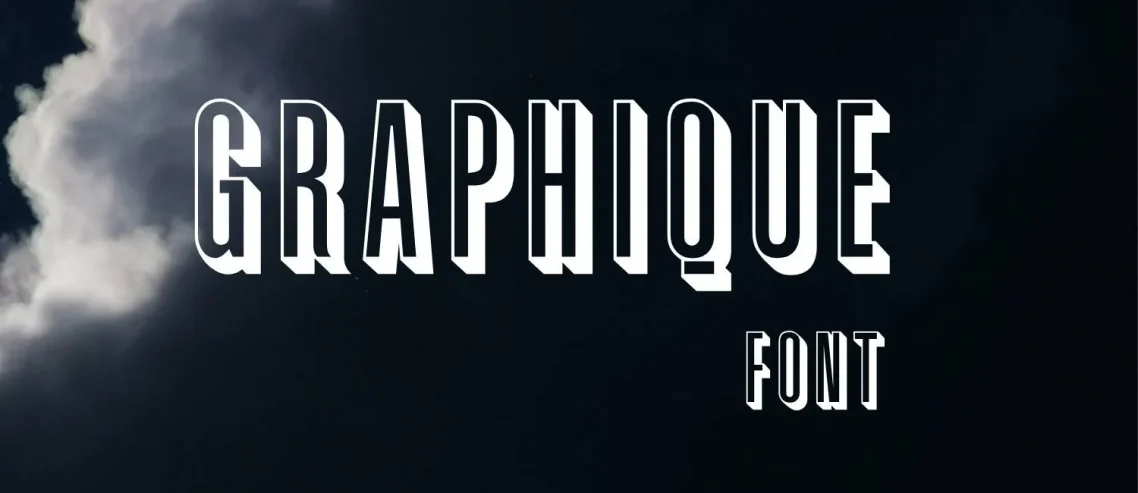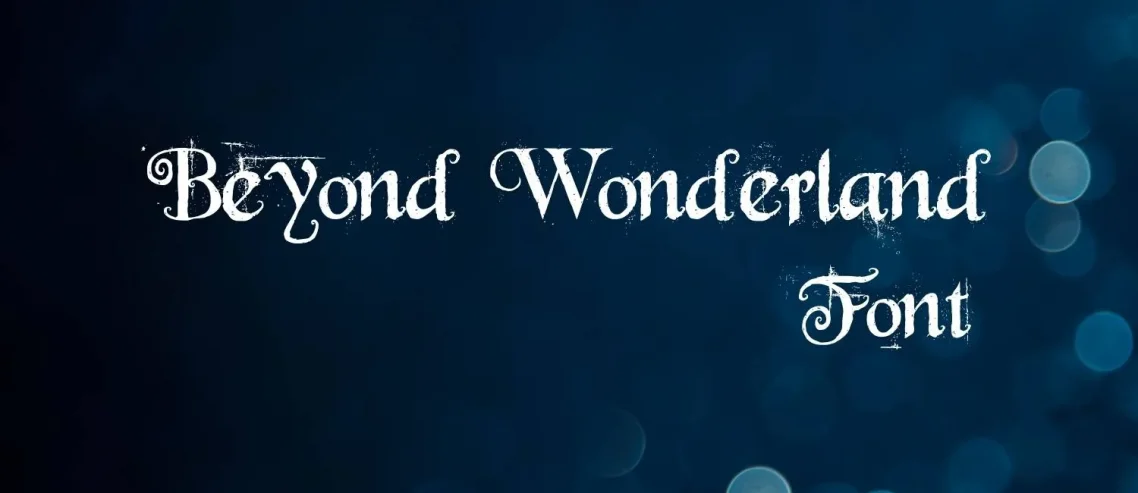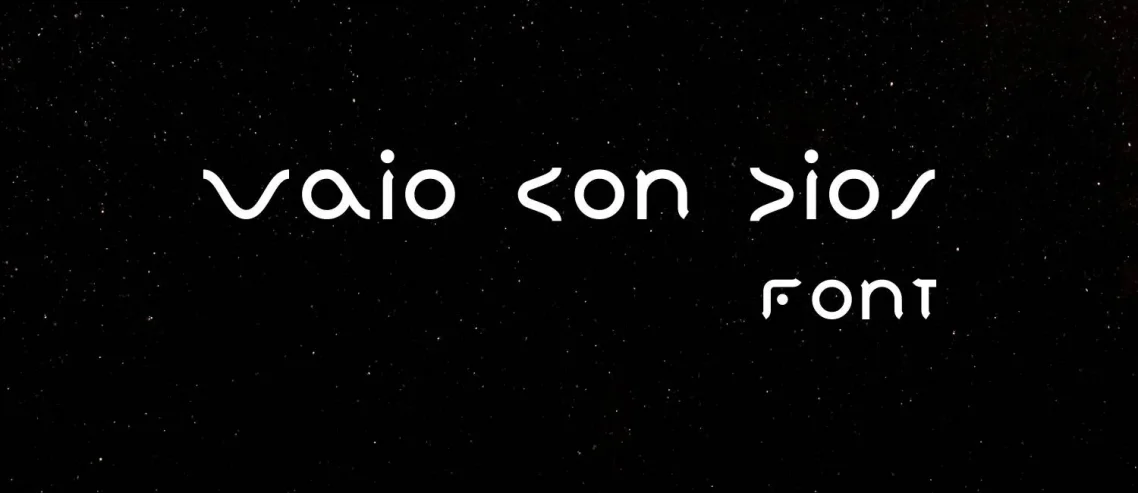
Bambi Font Free Download
Bambi Font is a font created in 2006 by David Kerkhoff. This Font is an elegant serif typeface with a touch of the display. It is named after the main character in the Disney film, Bambi. The font comes in two styles, regular and italic. Bambi Typeface is a great choice for logos, headlines, invitations, …
Vaio Con Dios Font Free Download
Vaio Con Dios Font is a stylish and sophisticated retro font that was created by graphic designer Miguel Hervás. The font was inspired by the Vaio logo, which was designed by Hervás himself. Vaio Con Dios is a popular font that has been used by many designers and artists. You can also try the best …
Graphique Font Free Download
Graphique Font is a display typeface designed in the early 1950s by Swiss graphic designer Hermann Eidenbenz. It was released by the Linotype foundry in 1957. The design is based on Eidenbenz’s earlier Klingspor typeface FF Schmid (1936), which itself was inspired by the work of German type designer Rudolf Koch. Graphique is available in …
Beyond Wonderland Font Free Download
Beyond Wonderland Font is a fancy font designed by Jens R. Ziehn. It was inspired by the Adventureland theme park in Anaheim, California. The font features a distressed, hand-drawn look and includes uppercase and lowercase letters, numbers, and punctuation marks. The glyphs of this font have been designed to be used as decorations, not body …
Whitehall Font Free Download
Whitehall Font is a handwritten typeface created in the early 18th century by British typefounder John Baskerville. Whitehall typeface is characterized by its handwritten and high contrast between thick and thin strokes. This gives the font an elegant, formal appearance that is well-suited for use in formal documents and invitations. The Whitehall texture was created …
Coca-Cola Font Free Download
Coca-Cola font is the proprietary typeface used in Coca-Cola branding. It was designed by John Smith in 1885 and has been used extensively in Coca-Cola advertising and packaging since then. This font is a unique and instantly recognizable typeface that has helped to make Coca-Cola one of the most recognizable brands in the world. This …